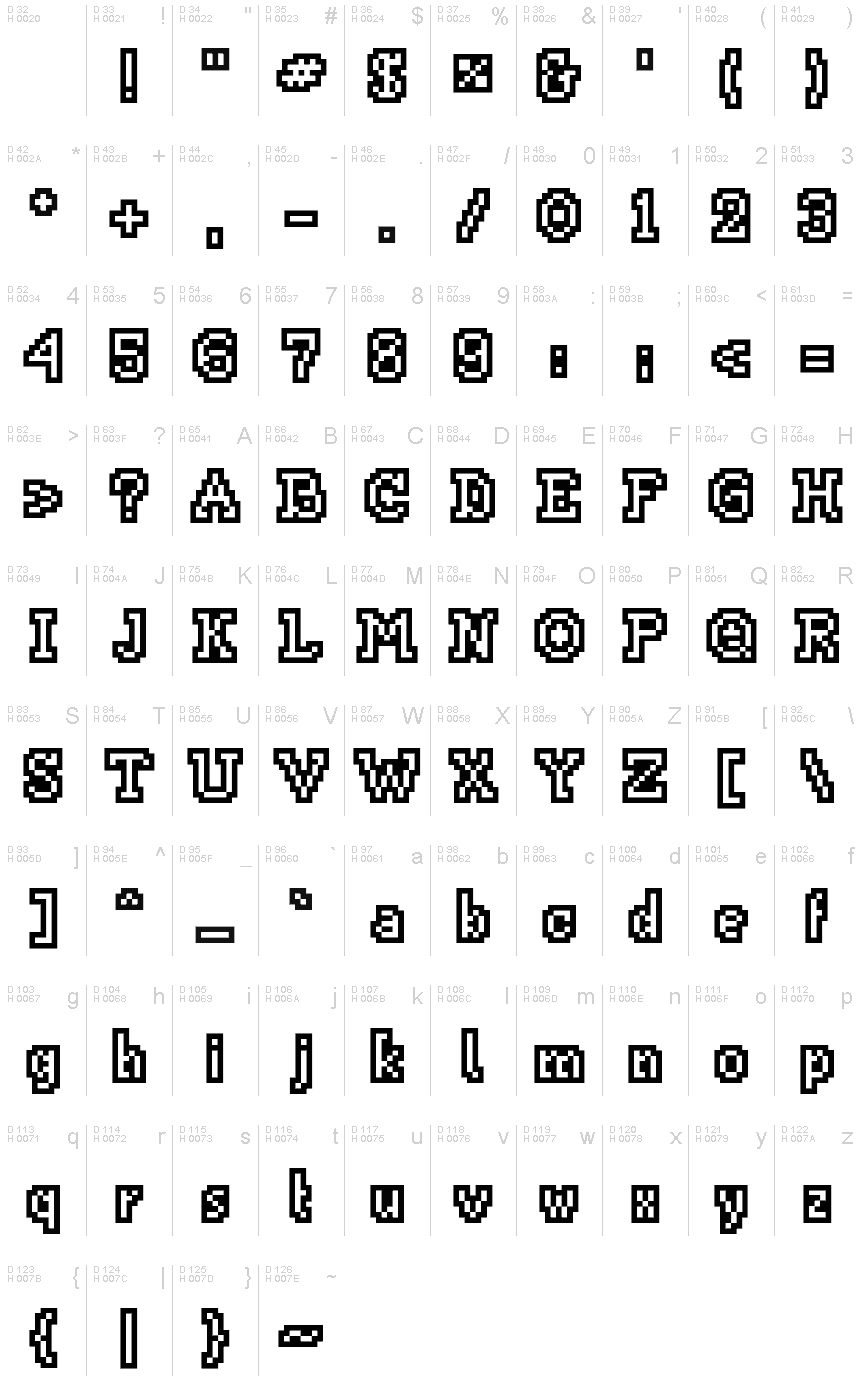
ThisSmackyOutlin
A font specifically made for use in Adventure Game Studios. Best viewed at 9 pixel size. Outline, shadow and alias fonts are to be layered over the base font.